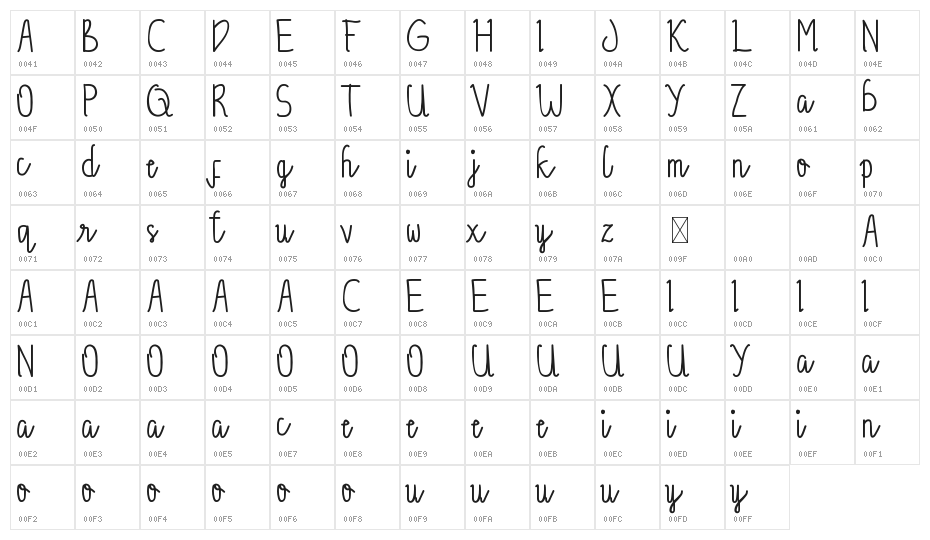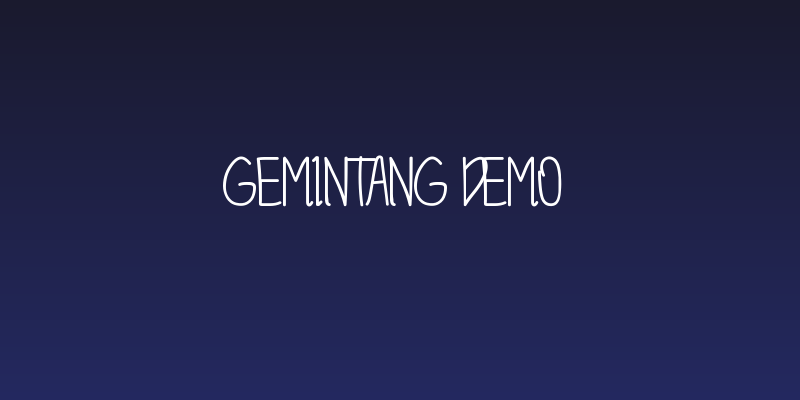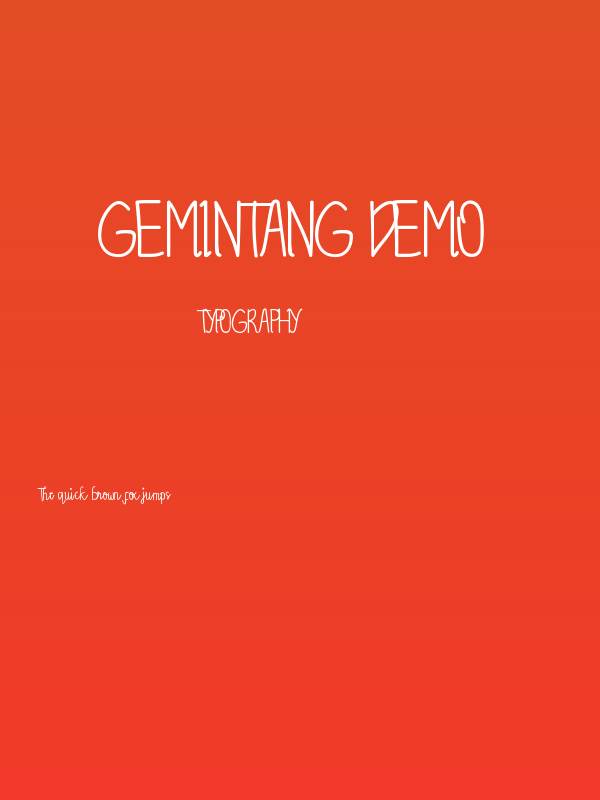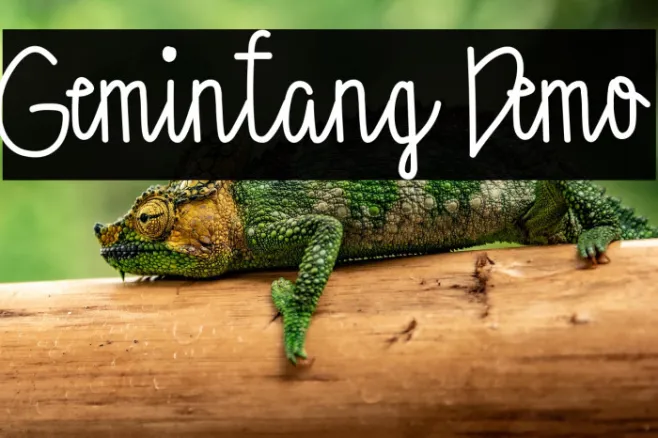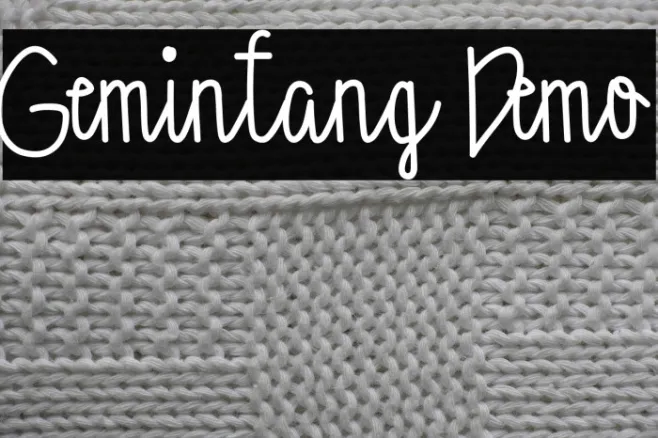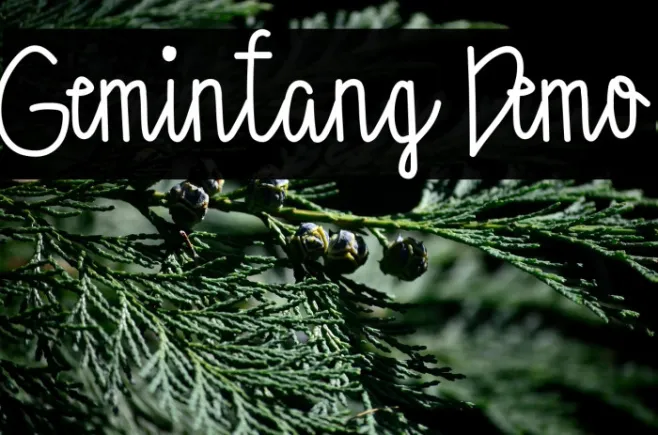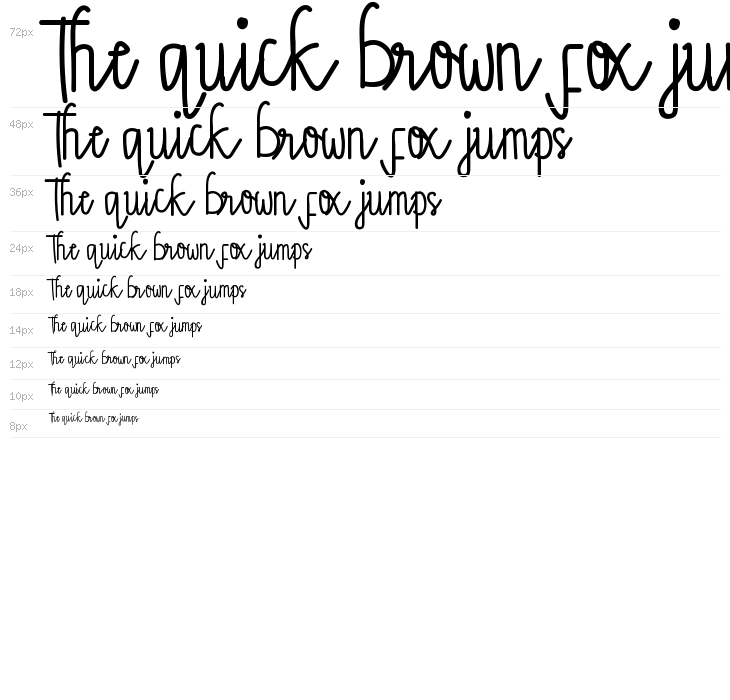
Gemintang Demo Font
Gemintang Demo Description
This font features a playful and casual handwritten style, characterized by its smooth, flowing lines and slightly irregular shapes that give it a personal touch. The uppercase letters are tall and narrow, while the lowercase letters maintain a consistent height, adding to the font's readability. The strokes are uniform in thickness, providing a balanced appearance. The font includes a full set of uppercase and lowercase letters, numbers, and a selection of special characters, making it versatile for various design needs. Its informal and friendly look makes it suitable for projects that require a personal or creative touch.
| Proposed Projects | Ideal for greeting cards, invitations, personal branding, and creative projects. |